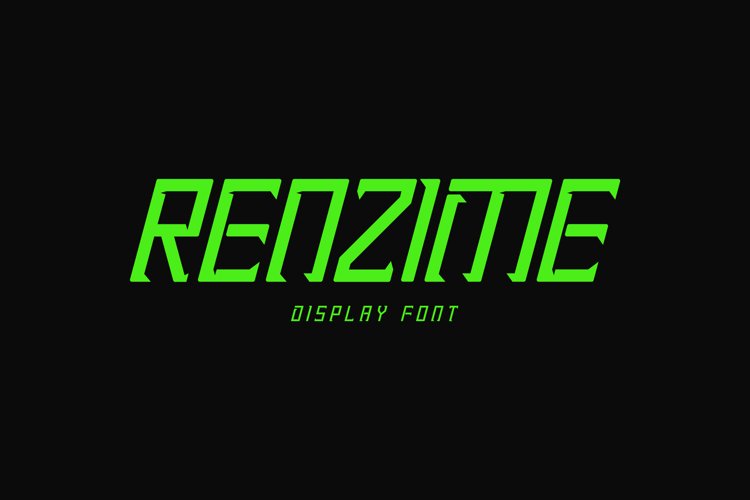
Meet our newest product, we call this product renzime font.
Renzime font are display typeface font
Whit a uniqe touch and assertive
Renzime font is very nice to use on:
fashion magazine,logos, ,and photography,landing page,fliyer,